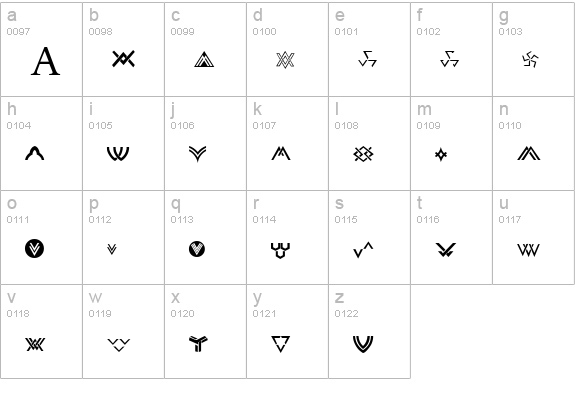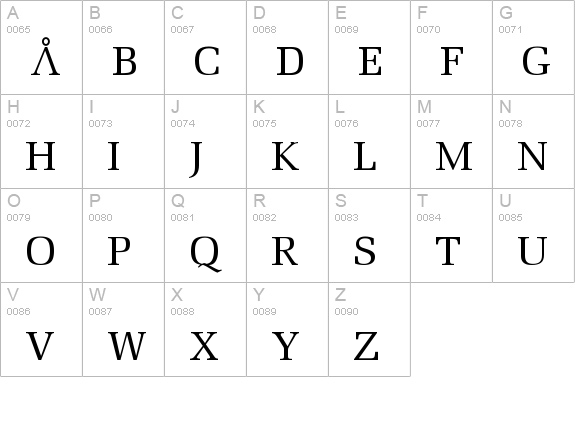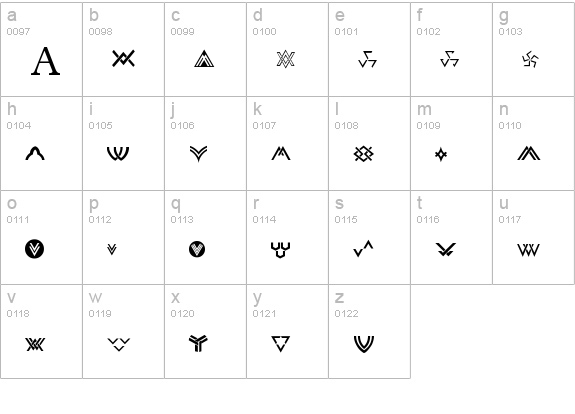
Stargate Font Details
The Stargate font is a captivating and futuristic typeface that transports you to distant galaxies and interstellar adventures. Its sleek and modern design evokes a sense of mystery and wonder, making it perfect for sci-fi themed projects, movie posters, and digital art pieces. The Stargate font is meticulously crafted with intricate details that give it a unique and otherworldly charm. And the best part? Stargate font is completely free to download at FontsMarket.com! Now you can add a touch of cosmic flair to your designs without breaking the bank. Don't miss out on this opportunity to elevate your creative projects with the mesmerizing Stargate font. Download it now and let your imagination soar to new heights!